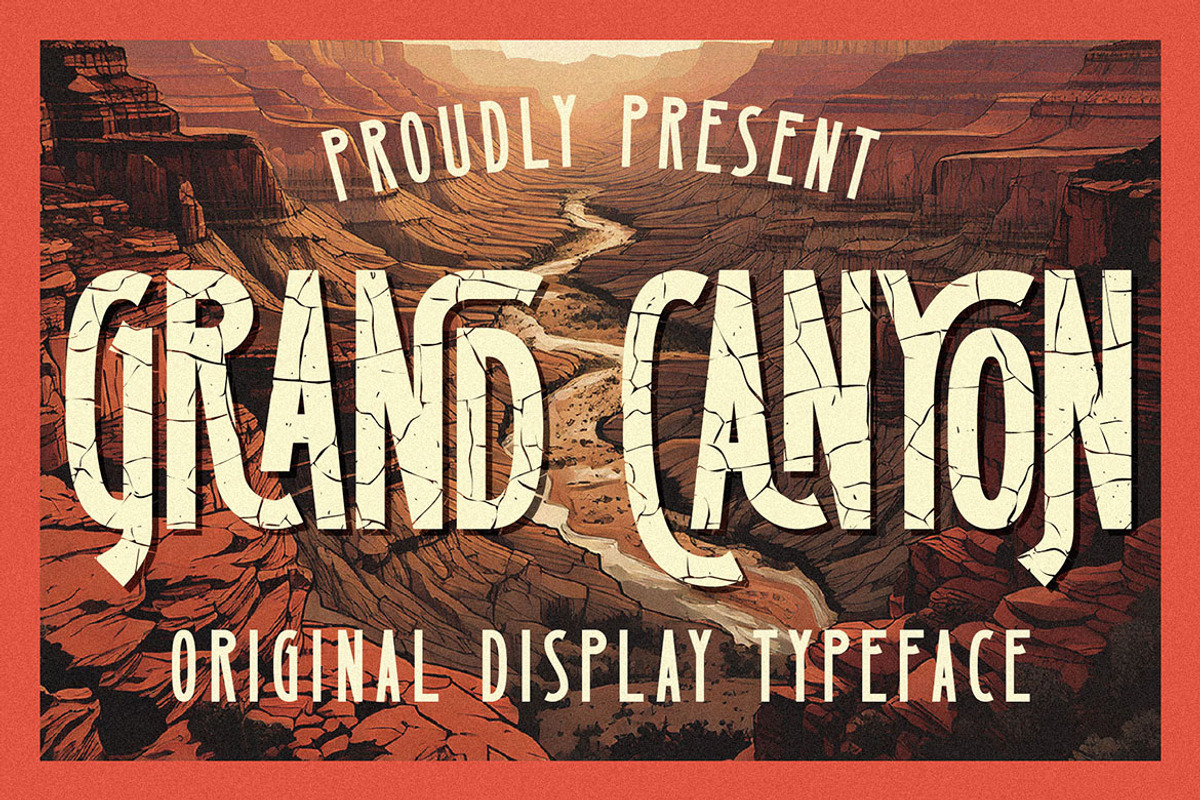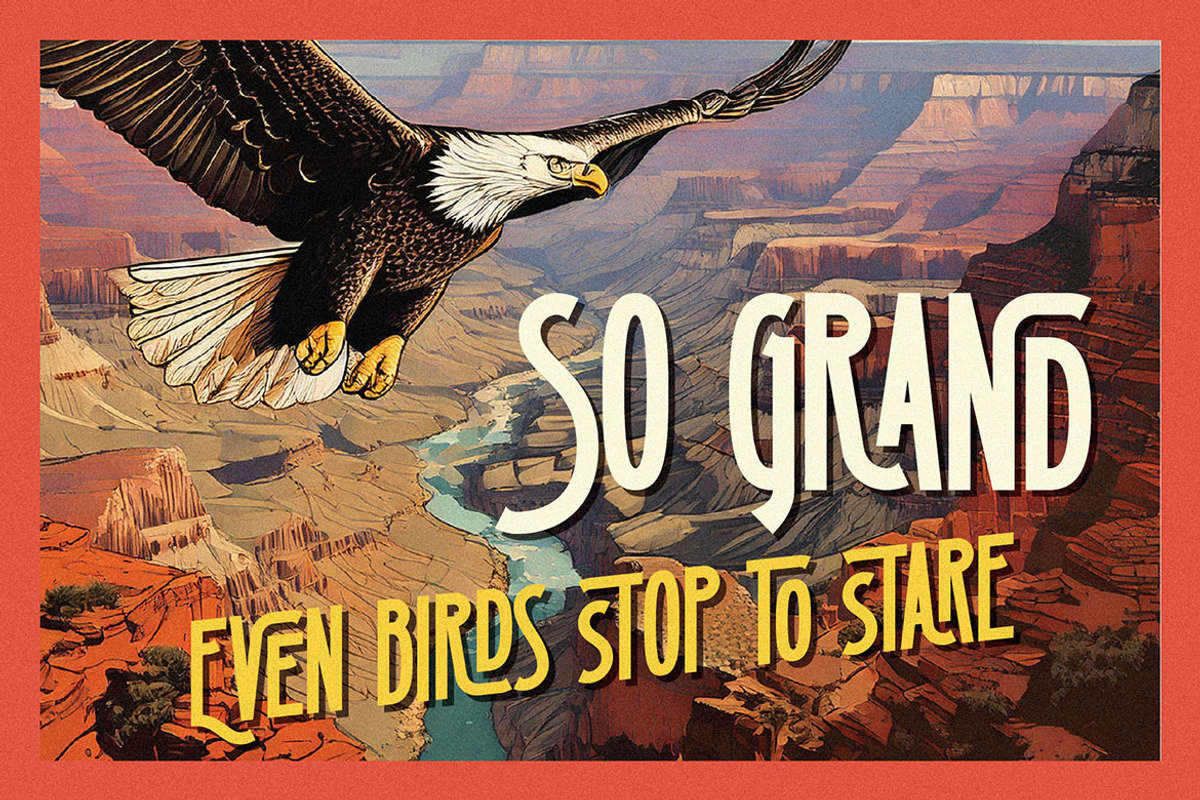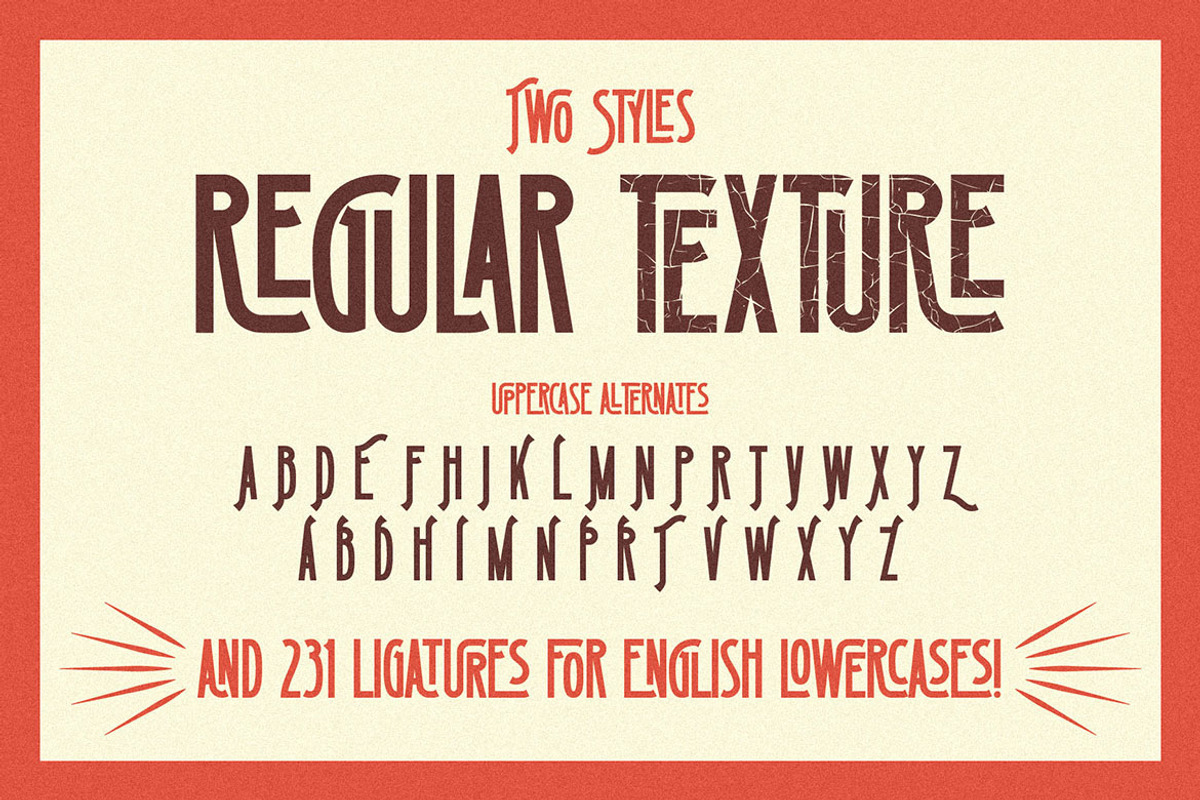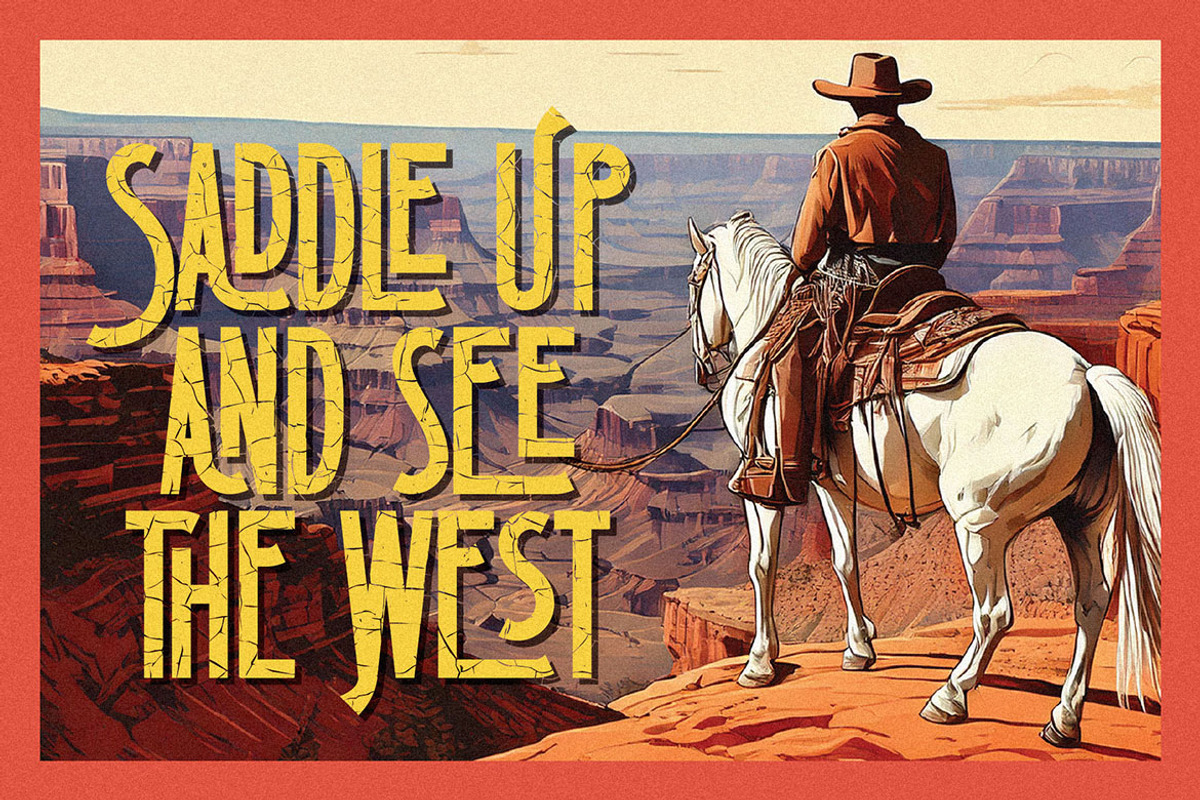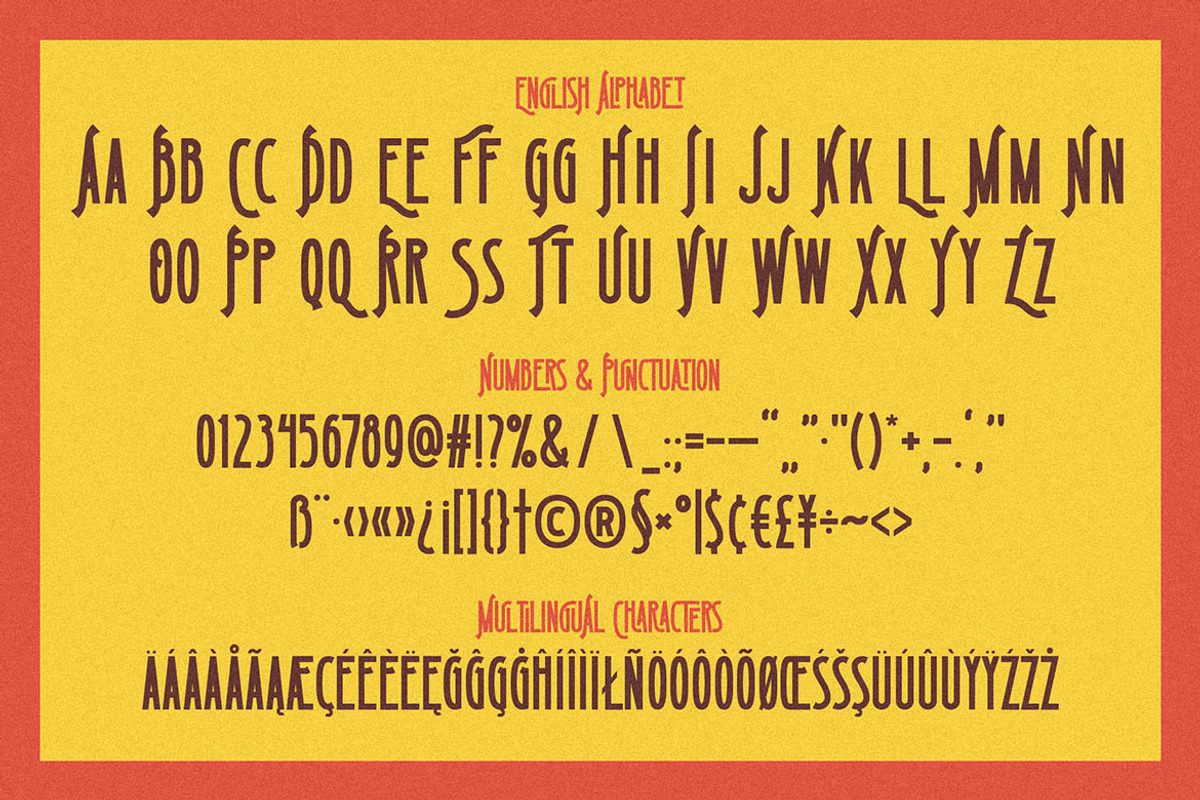
Grand Canyon ArtDeco Style Font
Unique, vintage, textured, condensed, retro & artdeco style sans serif font. Comes with multilingual support & lot of ligatures (231) + regular & textured font versions - great for your new logo, monogram or branding project.
- 2 font versions - regular & textured
- Multilingual support & lot of ligatures (231)
- Great for your new logo, monogram or branding project